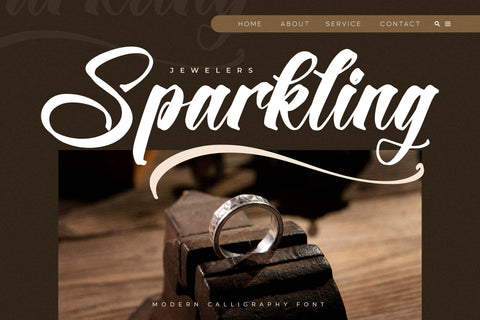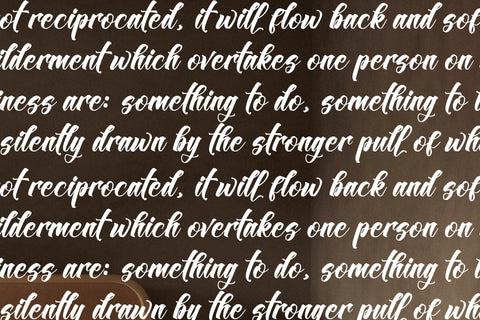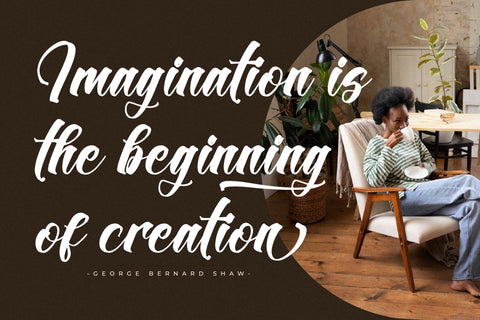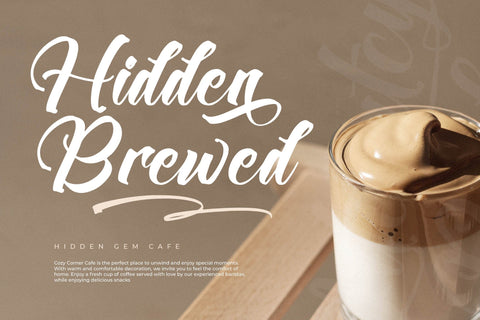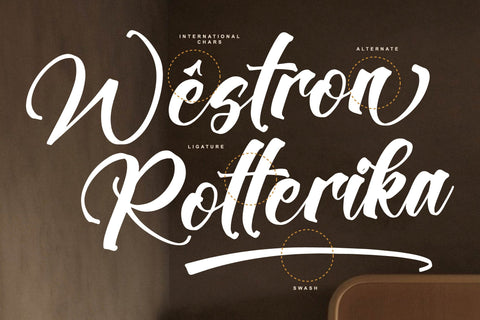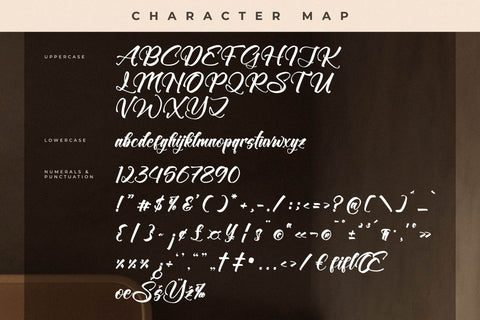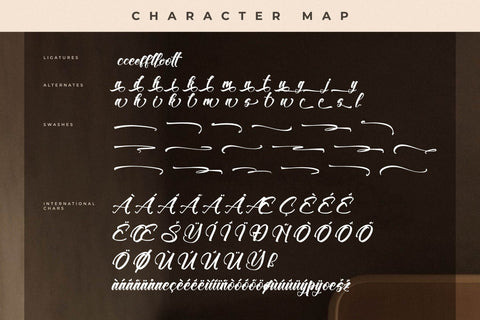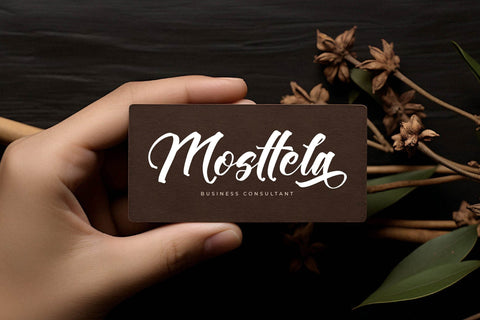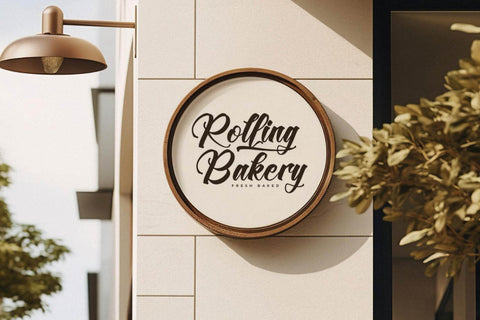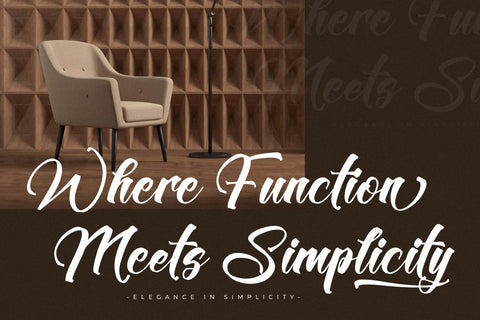
Westron Rotterika - Modern Calligraphy Font
Westron Rotterika - Modern Calligraphy Font , from Letterena, is a Luxury Script font, suitable for any projects such as: logos, branding projects, homeware designs, product packaging, mugs, quotes, posters, shopping bags, t-shirts, book covers, name card, invitation cards, greeting cards, label, photography, watermark, special events, and all your other luxury and beautiful projects that need a Luxury serif taste.